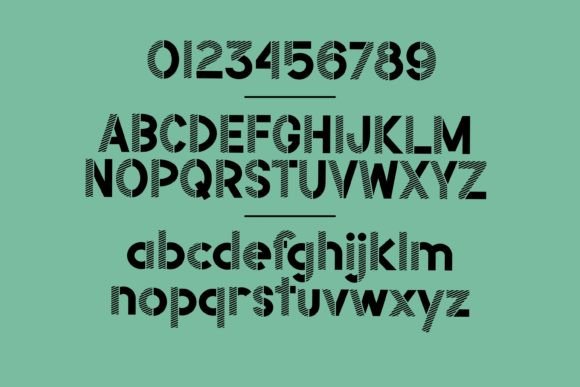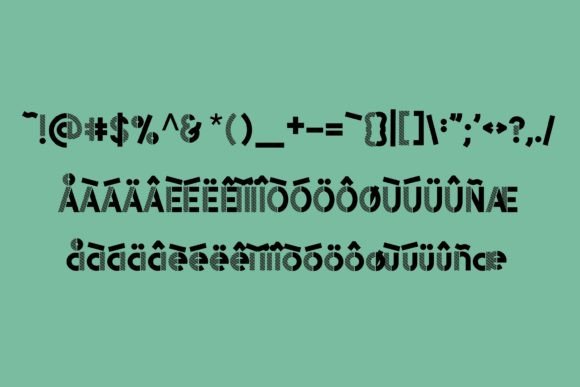
Introducing Blazer Font: Elevate Your Designs with Bold and Modern Style
In the world of typography, fonts play a crucial role in shaping the visual identity of a brand or design. With the ever-growing demand for unique and stylish fonts, we’re excited to introduce Blazer, a bold and modern font that’s sure to make a statement. This striking display font features eye-catching diagonal stripes that add a fresh and dynamic flair to any project.
The Unique Features of Blazer Font
Blazer font is designed to make an impact. Its geometric shapes and dynamic lines bring energy and a sense of movement to your creations. The distinctive diagonal stripes give the font a bold and edgy look, perfect for headlines, branding, or any design that needs a stylish twist. Whether you’re creating posters, logos, or eye-popping graphics, Blazer font is sure to leave a lasting impression.
Blazer font is a versatile and creative tool that’s perfect for designers and crafters looking to elevate their work. With its modern and bold style, this font can be used in a variety of applications, from:
- Headlines and titles: Add a touch of sophistication and style to your headlines and titles with Blazer font.
- Branding and logos: Create a unique and memorable brand identity with this striking font.
- Posters and flyers: Make your posters and flyers stand out with the bold and eye-catching Blazer font.
- Graphics and illustrations: Add a dynamic and modern touch to your graphics and illustrations.
Why Choose Blazer Font?
With so many fonts available, why choose Blazer? Here are just a few reasons why Blazer font stands out:
- Unique and distinctive: Blazer font features a one-of-a-kind design that’s sure to grab attention.
- Versatile: This font can be used in a variety of applications, from digital designs to print materials.
- Easy to read: Despite its bold and edgy look, Blazer font is easy to read and understand.
- High-quality: Blazer font is designed with high-quality and precision, ensuring a crisp and clean look.
Tips for Using Blazer Font
To get the most out of Blazer font, here are a few tips to keep in mind:
- Use it sparingly: Blazer font is bold and attention-grabbing, so use it sparingly to avoid overwhelming your design.
- Pair it with complementary fonts: Pair Blazer font with complementary fonts to create a harmonious and balanced look.
- Experiment with colors: Try experimenting with different colors to find the perfect match for your design.
| Font Name | Blazer Font |
| Author | kitaleigh |
In conclusion, Blazer font is a bold and modern font that’s perfect for designers and crafters looking to elevate their work. With its unique and distinctive design, versatility, and high-quality precision, Blazer font is sure to make a statement in any project. Whether you’re creating headlines, branding, or eye-popping graphics, Blazer font is the perfect choice for adding a fresh and stylish look.